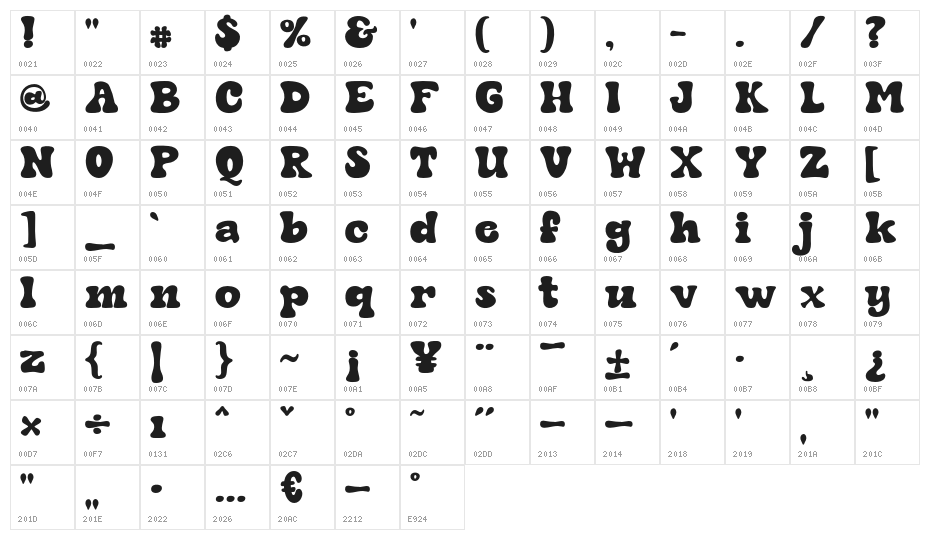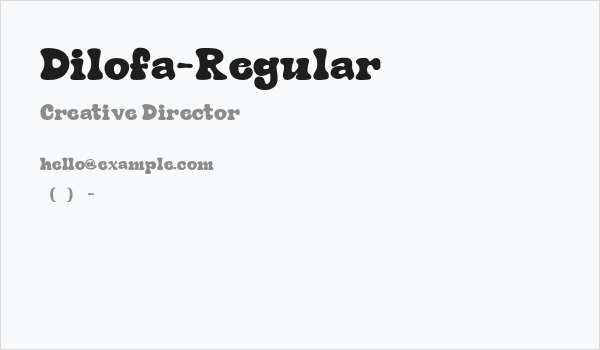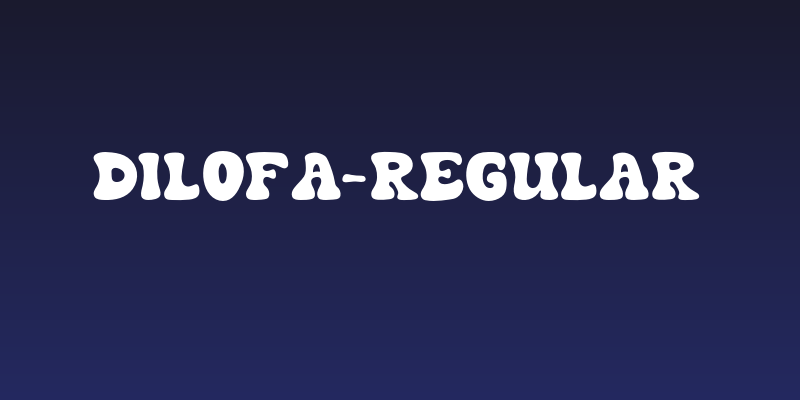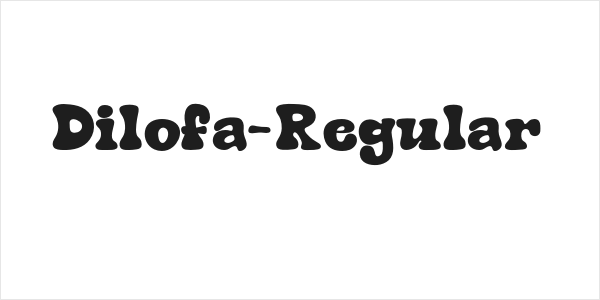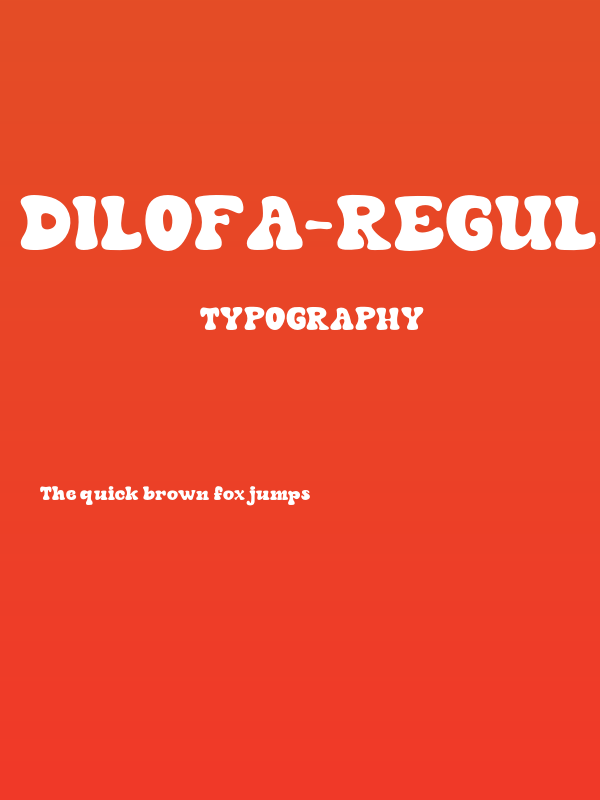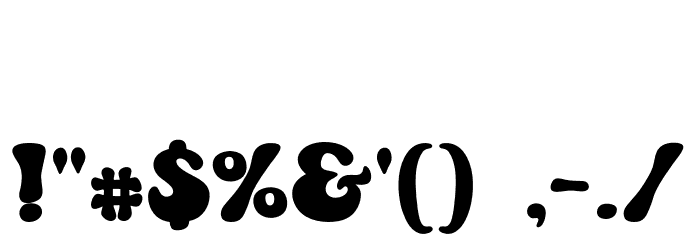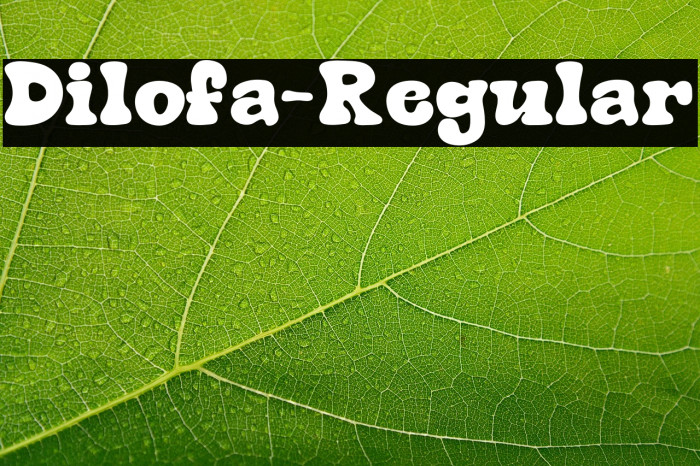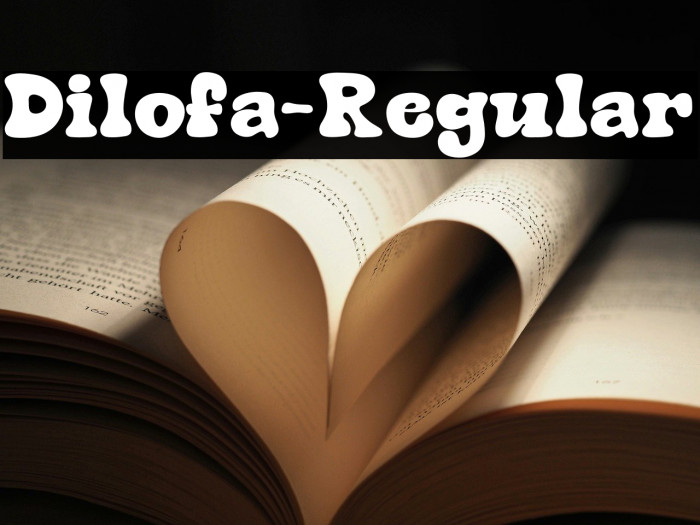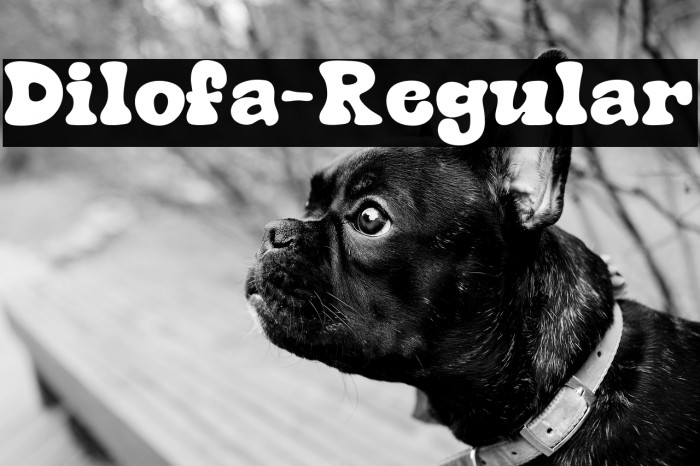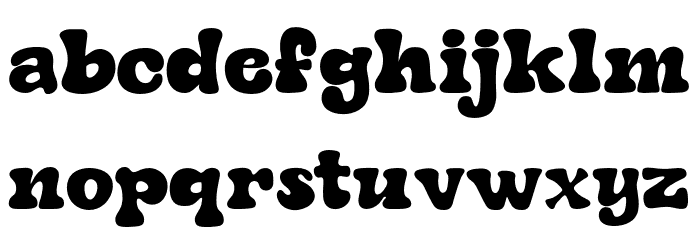
Dilofa-Regular Font
Dilofa-Regular Description
This font features a playful and bold design with rounded, bubbly characters that convey a sense of fun and creativity. The letters are thick and have a unique, almost cartoonish style, making them stand out prominently. The font maintains a consistent weight throughout, providing a cohesive look. Its whimsical nature is enhanced by the rounded edges and the slightly irregular shapes of the characters, giving it a hand-drawn feel. The font is well-suited for projects that require a lively and engaging appearance, such as children's books, playful branding, or creative posters.
| Overall Style | Playful, Whimsical |
| Proposed Projects | Ideal for children's books, playful branding, creative posters, and any project needing a fun, engaging look. |